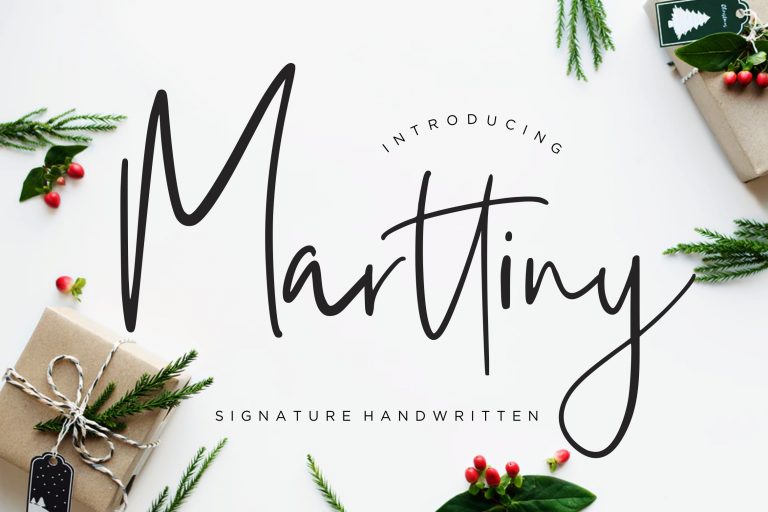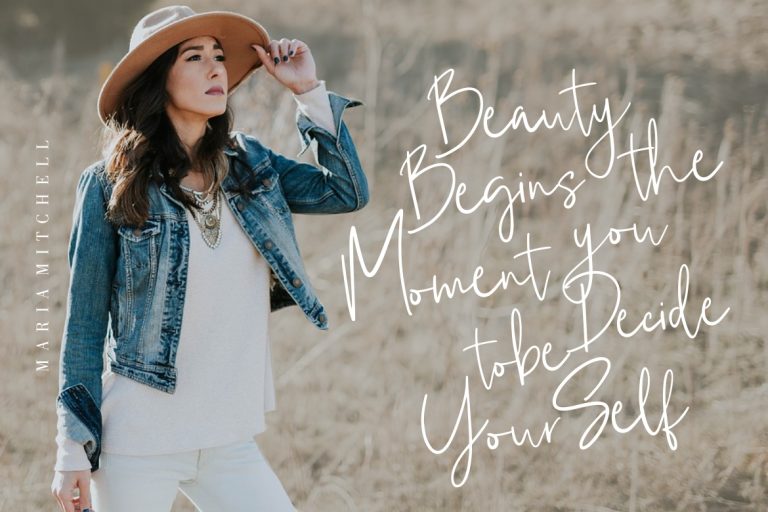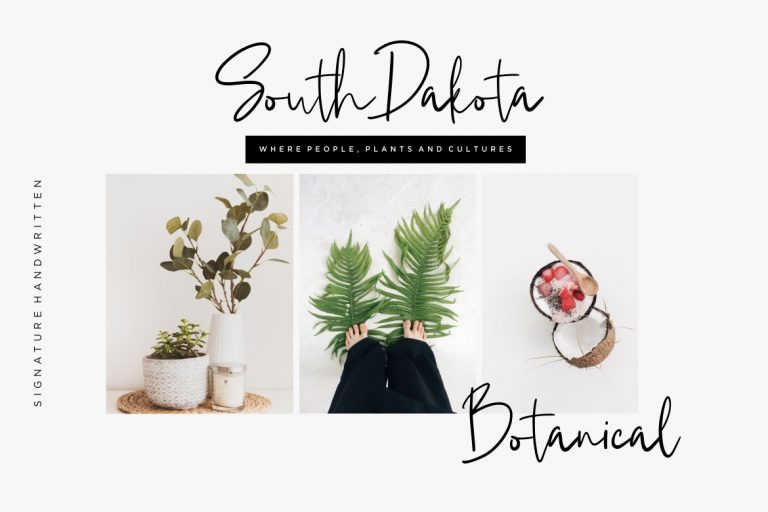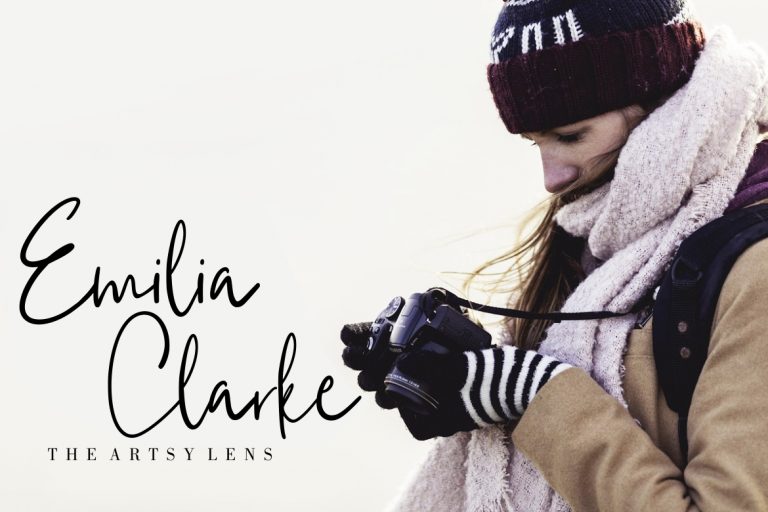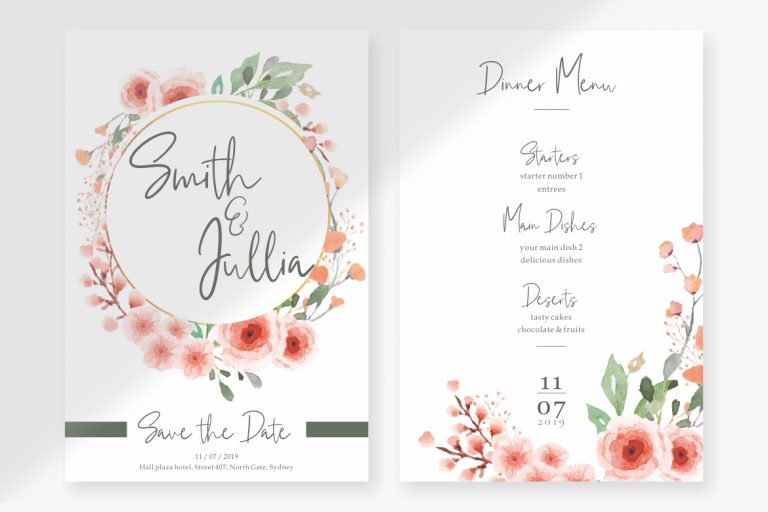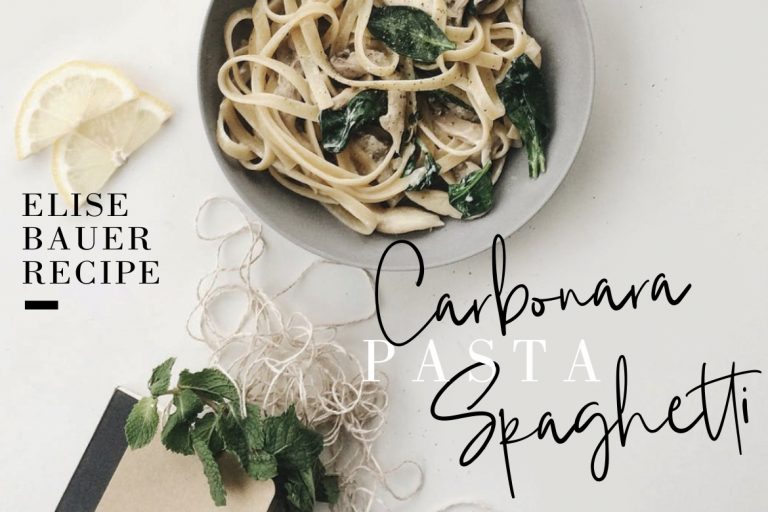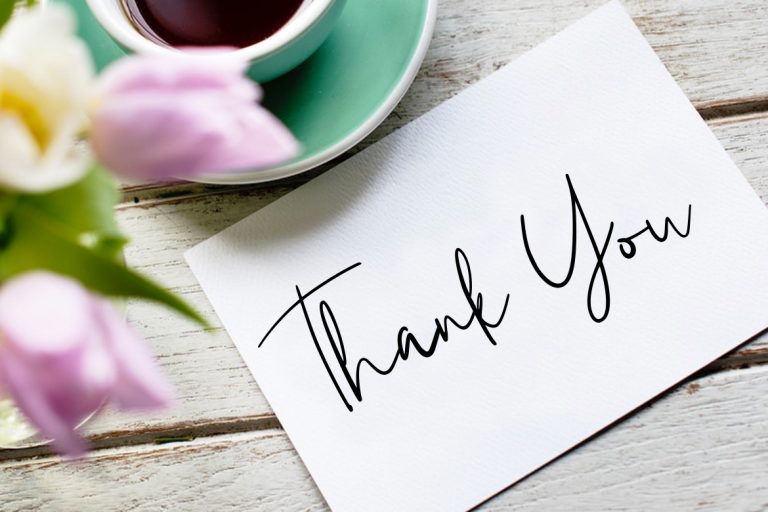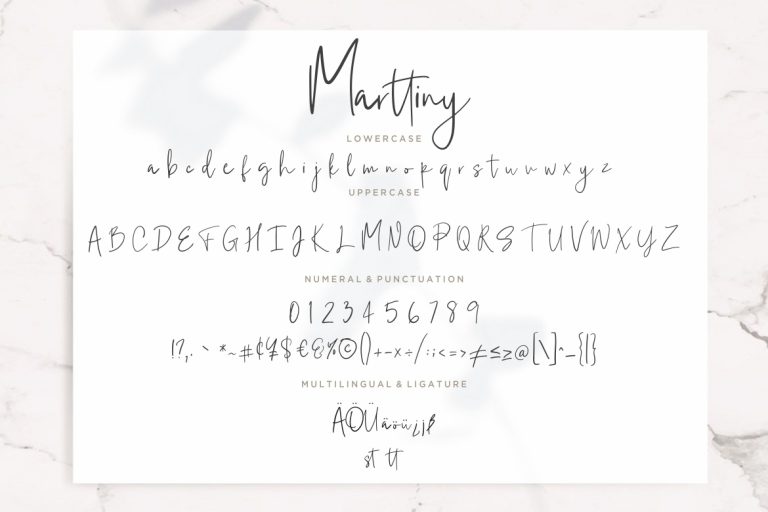
Marttiny is signature handwritten font with smooth movement and classy style.
Marttiny is perfect for branding projects, logo, wedding designs, social media posts, advertisements, product packaging, product designs, label, photography, watermark, invitation, stationery and any projects that need handwriting taste.
- Fonts include multilingual support for; ä ö ü Ä Ö Ü ß ¿ ¡
Marttiny Signature Handwritten